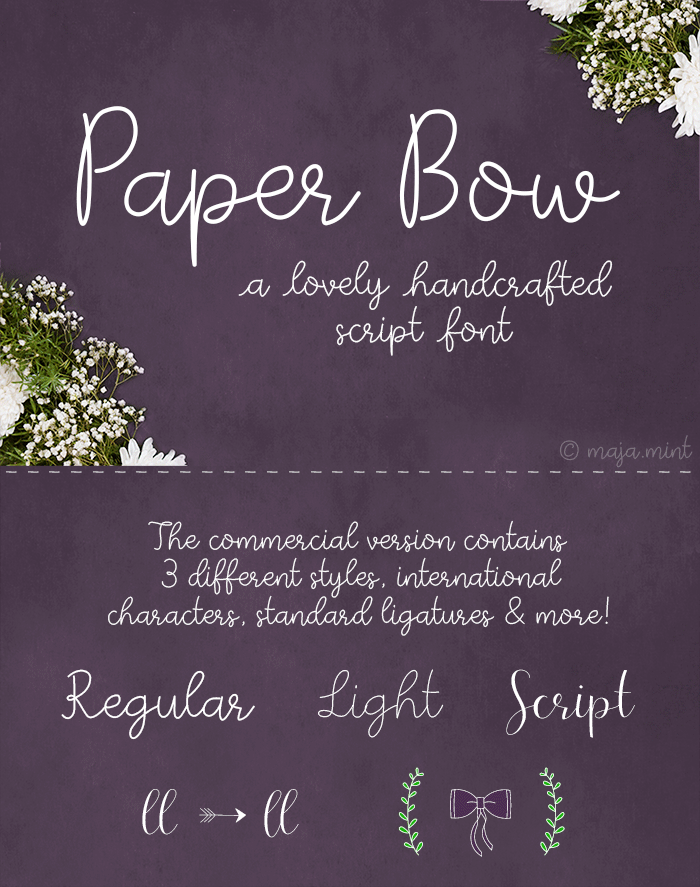
This is the demo version of Paper Bow, a lovely handcrafted script font. It is free for PERSONAL USE ONLY! TIP: Type ~ to add an upstroke. The commercial version contains 3 different styles, international characters, standard ligatures and much more. It can be purchased on CreativeMarket: https://crmrkt.com/7pm3v - - - - - - - - - - - - - - - If you have any questions, please contact me at info[at]majamint.com ENJOY :) https://creativemarket.com/maja.mint?u=maja.mint http://majamint.com |